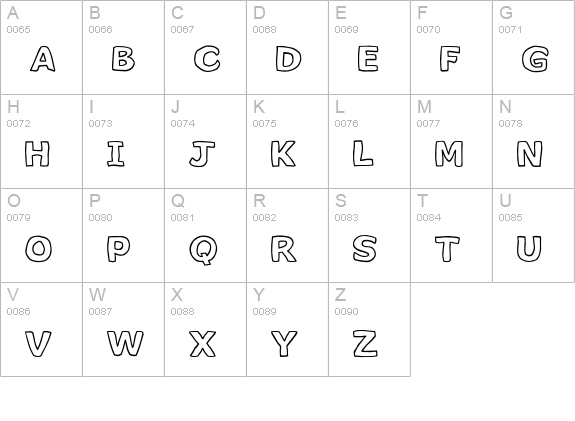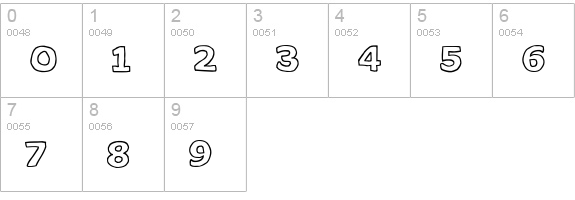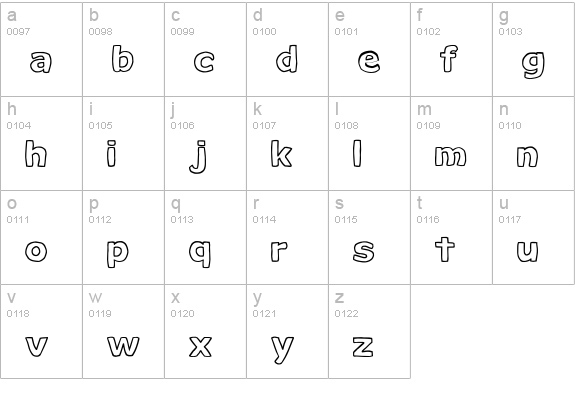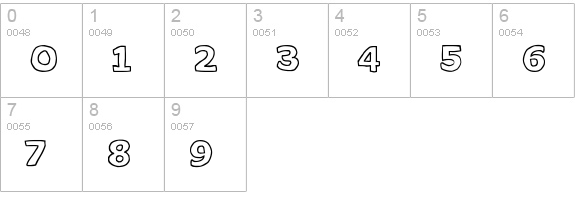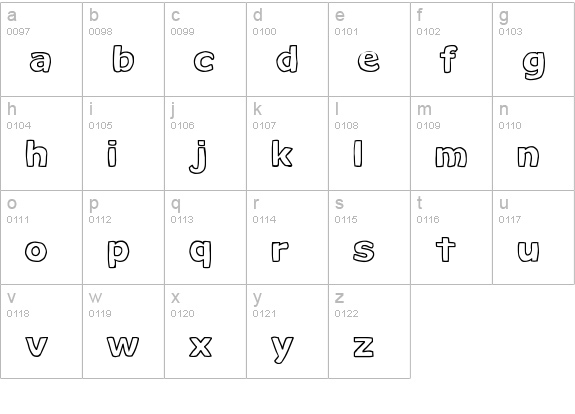
Milk Cocoa (sRB) Font Details
Milk Cocoa (sRB) font is a delightful and whimsical typeface that exudes warmth and charm. Inspired by the comforting combination of milk and cocoa, this font features smooth curves and playful details that make it perfect for a wide range of design projects. Whether you're creating a cozy branding design, a sweet invitation, or a fun poster, Milk Cocoa (sRB) font will add a touch of sweetness to your work. The best part? Milk Cocoa (sRB) font is completely free to download at FontsMarket.com. You can easily access this lovely typeface and elevate your designs with its unique character and versatility. Don't miss out on the opportunity to add Milk Cocoa (sRB) font to your font collection and bring a taste of sweetness to your creative projects.